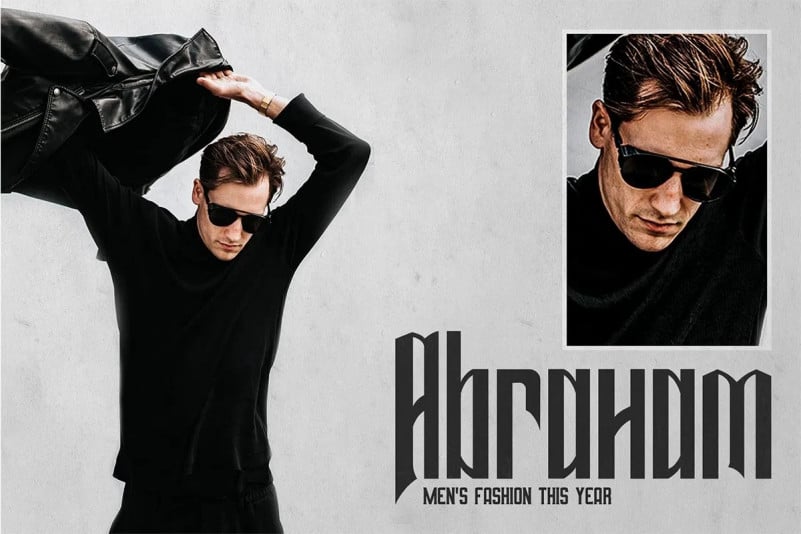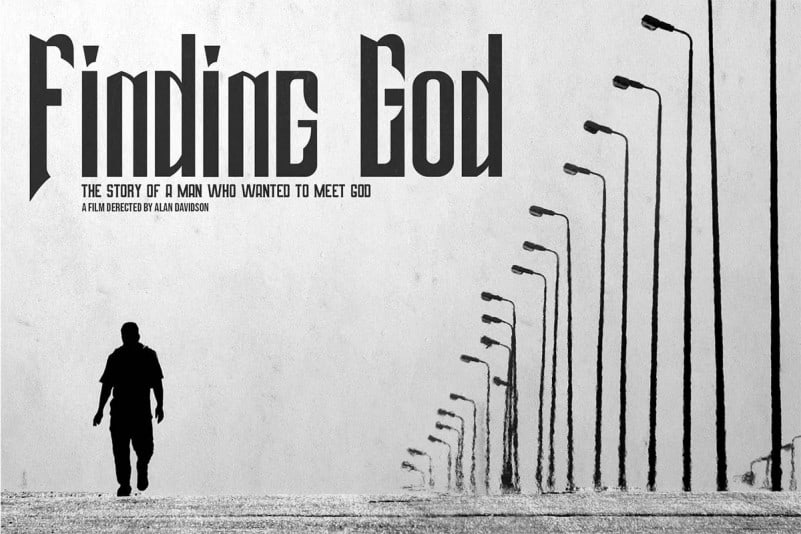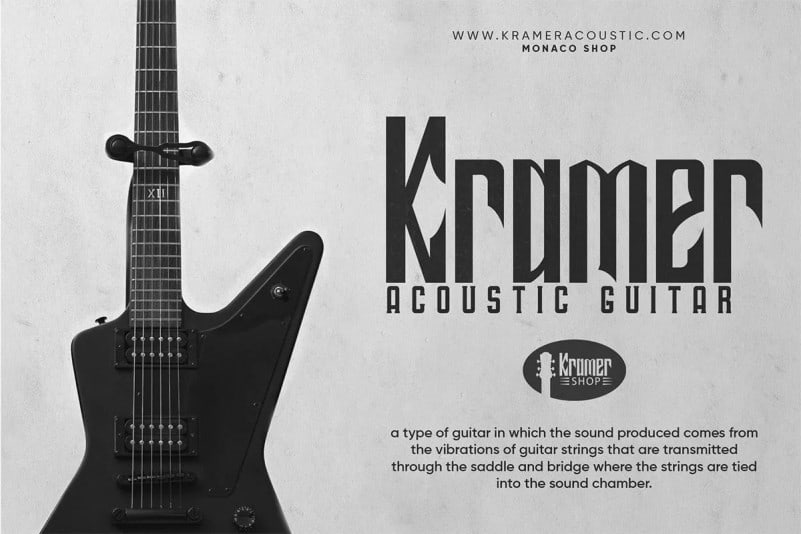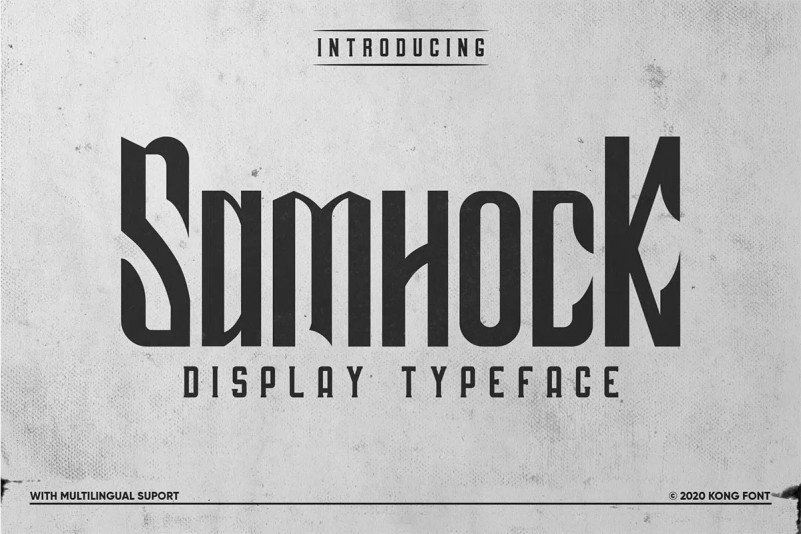
Samhock Display Font
Introducing, Samhock Display Font an incredibly Unique and Interesting Display typeface. This type of font perfectly made to be applied especially in headlines which is need a standout font, and the other various formal forms. This font is both modern and rustic and works great in branding, packaging, logos, game design, headlines and fashion. It pairs beautifully with a minimal sans serif font.